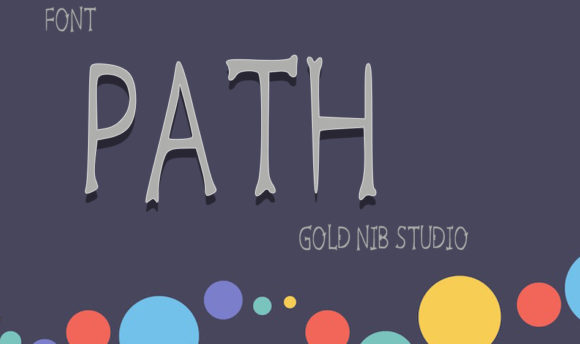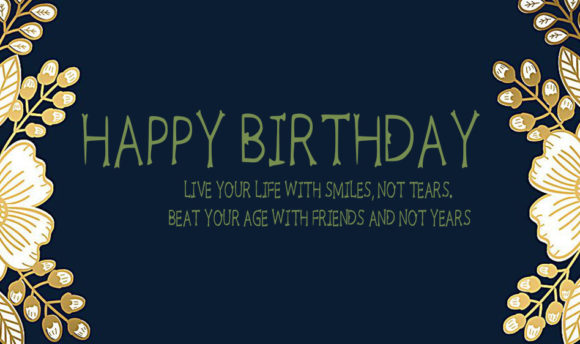
Introduction to Path Font
Imagine you’re brainstorming ideas for your next creative project – perhaps a poster for an upcoming music festival or a YouTube video for your favorite gaming channel. You’re scrolling through your design resources, searching for the perfect font to capture the essence of your concept. Suddenly, you stumble upon Path Font, a fresh and sketchy serif font that’s sure to elevate your design to the next level.
Path Font is more than just a font – it’s a design resource that offers a unique blend of style and versatility. With its transparent background and high-quality design, it’s the perfect addition to any creative project. Whether you’re working on a magazine, book, or comic, Path Font is sure to make your design stand out from the crowd.
Path Font: Key Features
- Unique, hand-drawn design ideal for creative projects
Honest Review: Path Font
As a designer, I’m always on the lookout for high-quality design resources to elevate my creative projects. Recently, I stumbled upon the Path Font, and I’m excited to share my honest review with you.
What works well: ✨ The Path Font is incredibly versatile and can be used for a wide range of creative projects, from digital art to typography-based designs. Its high quality and smooth lines make it perfect for designs that require a touch of elegance.
What’s not so great: ⚠️ The Path Font is a bit limited in its character set, which might be a drawback for designers who need a wide range of characters for their projects. Additionally, the font may not be suitable for large-scale prints or posters due to its digital nature.
Overall impression: I’m thoroughly impressed with the Path Font, and I would definitely recommend it to fellow designers. Its high quality and versatility make it a valuable addition to any design resource library.
- Perfect for digital art and typography-based designs
Path Font: A High-Quality Design Resource for Creative Projects
Tips for Getting the Most Out of Path Font
Use the transparent background feature to create a seamless design element that blends with your background. Experiment with different font sizes and colors to add visual interest to your project.
Path Font is ideal for creating eye-catching titles, headings, and logos. It’s also a great resource for designers working on branding materials, marketing materials, and other creative projects that require a unique and high-quality design element.